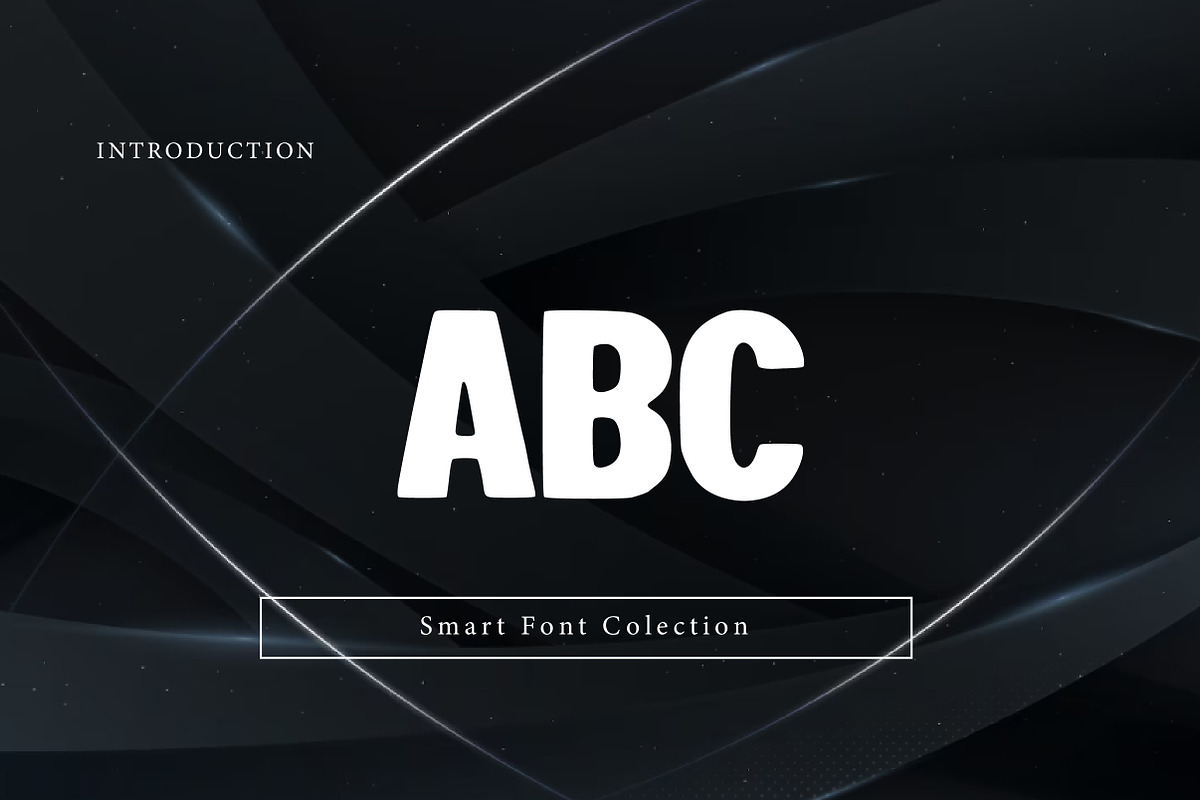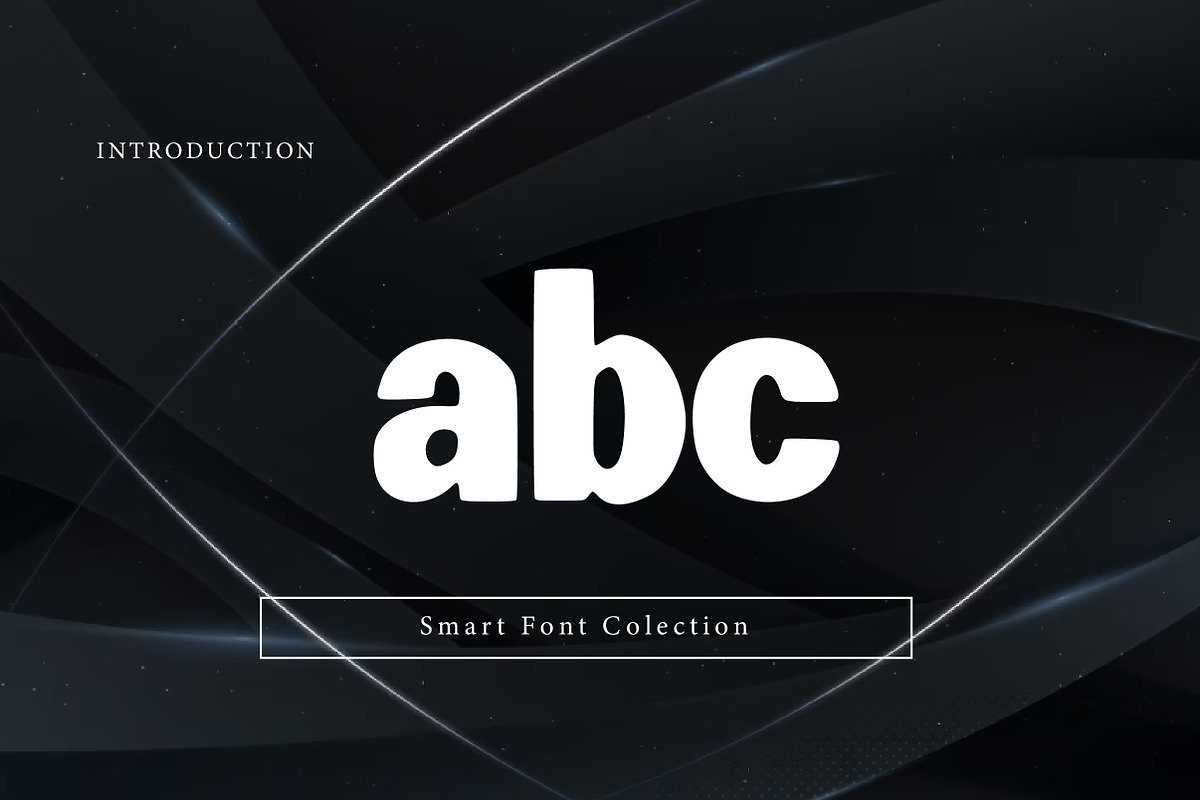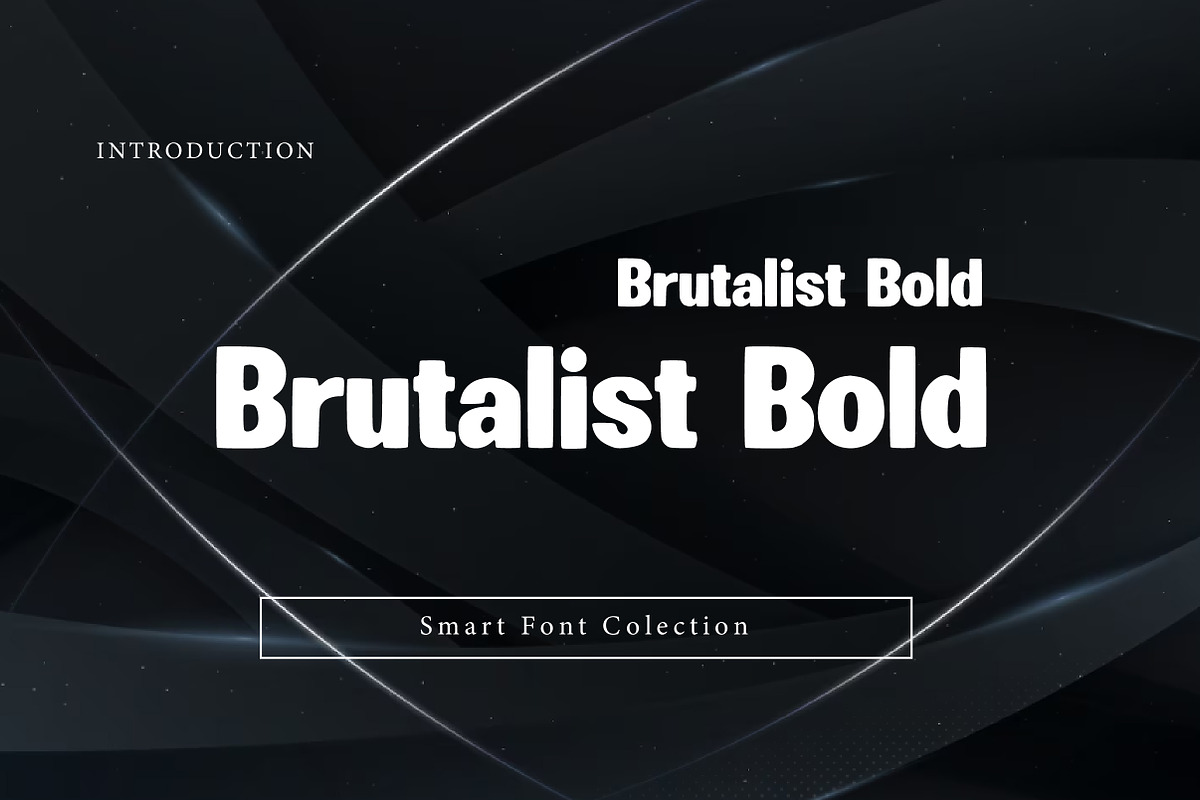
Brutalist Bold
Brutalist Bold is a strong and modern display font inspired by brutalist graphic design and bold typographic aesthetics. Featuring heavy strokes, solid letterforms, and a raw industrial feel, this font is perfect for posters, branding, editorial headlines, packaging, signage, album covers, and modern minimalist designs. Brutalist Bold delivers a powerful, contemporary impact that works best in bold layouts, urban visuals, and high-contrast typography projects.